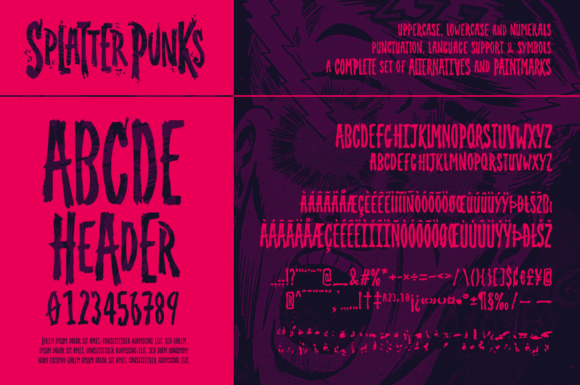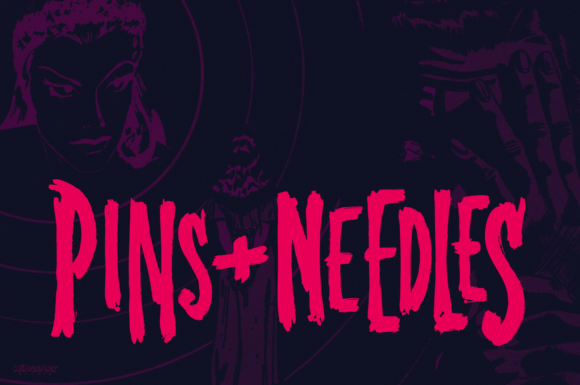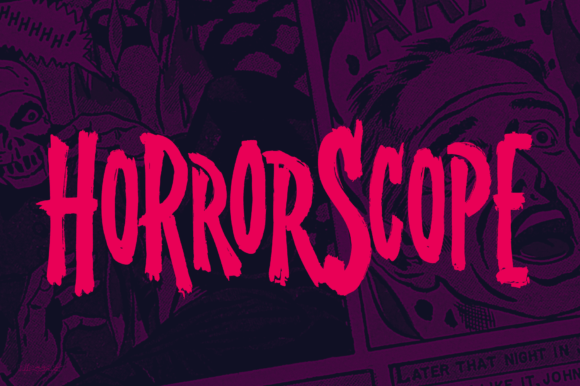
Splatterpunks Font
Introducing a fresh terror this Halloween, Splatterpunks is a hand-drawn brush font inspired by the blood-soaked pages of horror comics from the 1970s and 80s.This textured all-caps lettering evokes a spine-tingling tension that will leave your readers on tenterhooks. With a creeping, stretched look like that of a surprised cat, it offers of set of diabolical tools worthy of any horror fan!